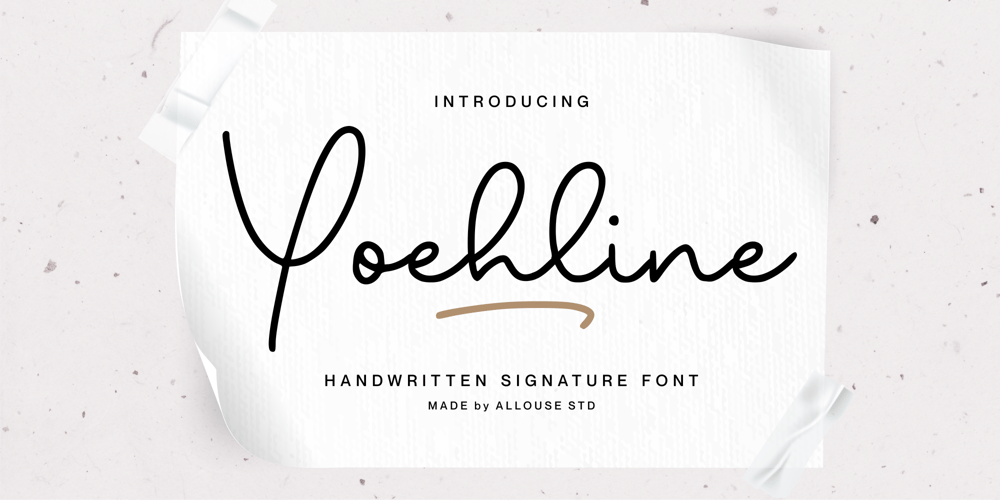
Yoehline Font Family was designed by Fachrizal Yusuf and published by Allouse Studio. Yoehline contains 1 styles and family package options. Proudly Presenting, Yoehline A Handwritten Signature Font.Yoehline is perfect for any titles, logo, product packaging, branding project, megazine, social media, wedding, or just used to express words above the background.Yoehline also come with Multi-Lingual Support.Enjoy the font, feel free to comment or feedback, send me PM or email. Thank You!